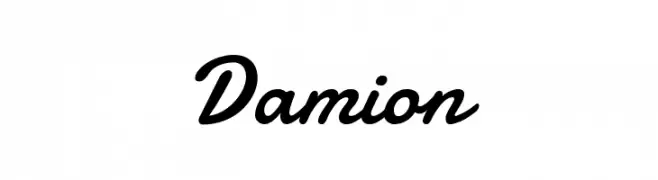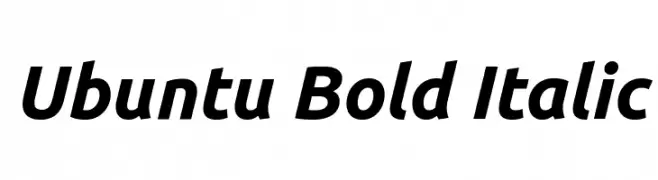
A modern, clean, and slightly italic font with medium weight and excellent readability.
A bold, italicized sans-serif font with a modern and dynamic style.
A sleek, modern, light italic font with smooth strokes and tight spacing.
A modern, italic sans-serif font with smooth curves and excellent legibility.
A lively cursive font with interconnected characters and a playful slant.